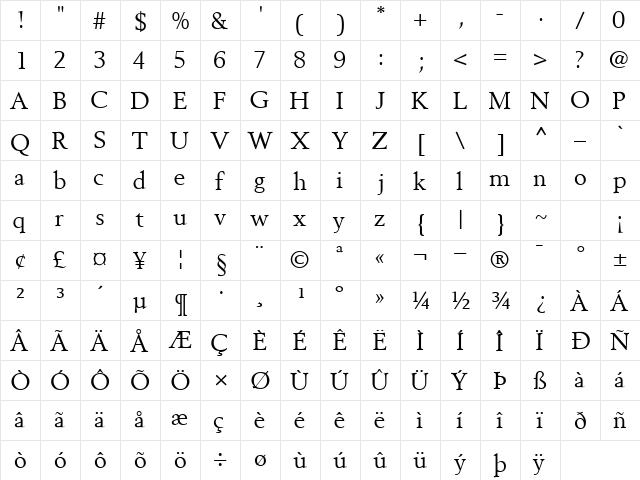
CortexSSK Regular Font Preview
CortexSSK Regular
CortexSSK Regular Font Details
Design Context for CortexSSK Typeface
CortexSSK takes a measured approach to typography — its balanced proportions and neutral character make it a reliable workhorse for both digital and print work.